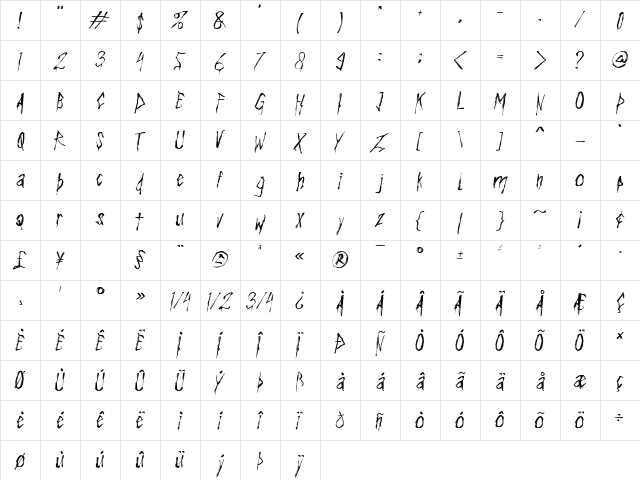
Corpsy is a composed and adaptable typeface that performs quietly and consistently across a wide range of design contexts. The slanted form adds forward momentum and visual energy.
Pro Tip: Use Corpsy for emphasis, pull quotes, and subheadings where its slanted energy can add rhythm to the layout.